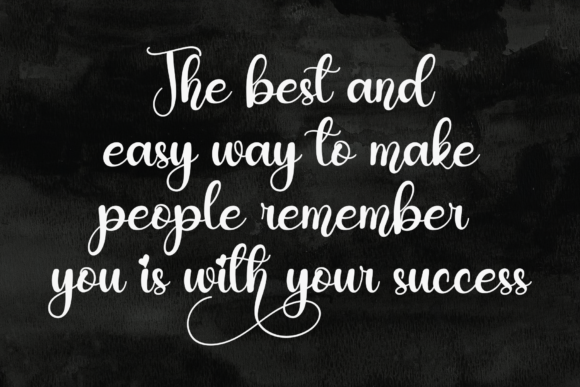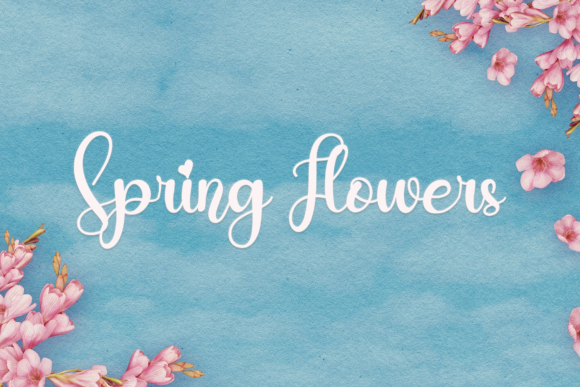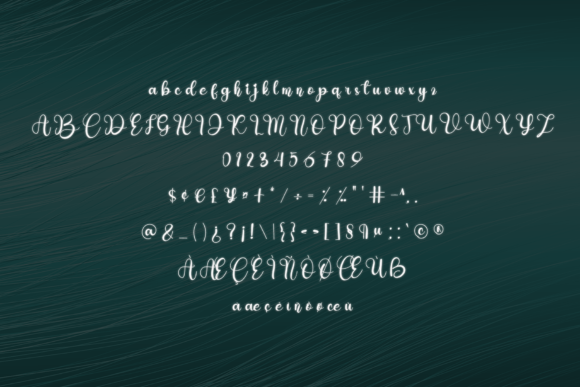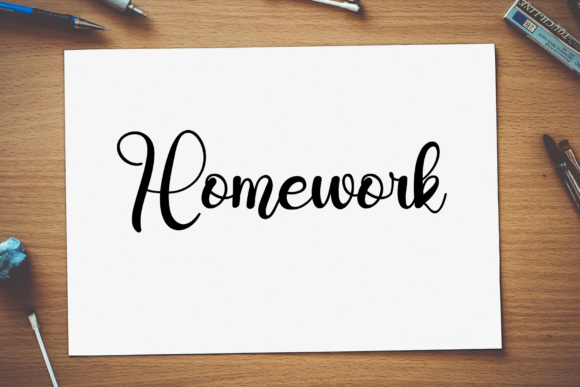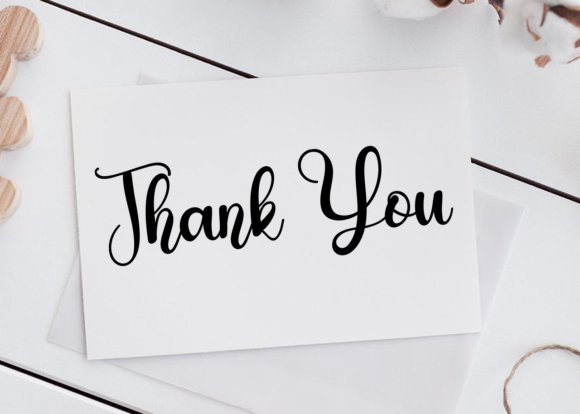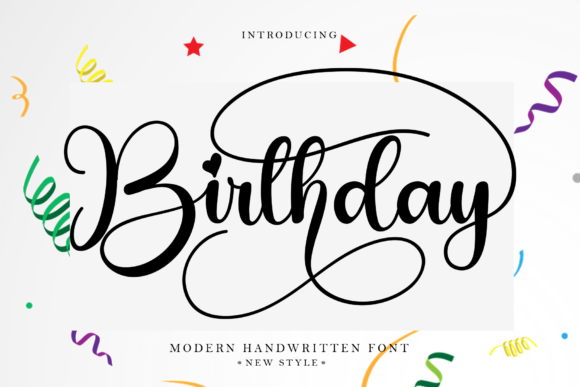
The Birth of a Unique Font: Celebrating with Birthday Font
I’ll never forget the time I was working on a birthday party invitation project for a client, and I just couldn’t find the perfect font to match the playful and celebratory vibe. The client wanted something fun, yet elegant, and I was determined to deliver. That’s when I stumbled upon the Birthday Font – a unique, round lettered handwritten font that was carefully crafted to produce the desired results. In this article, I’ll share my experience with this beautiful font, its features, and how to make the most of it in your designs.
• Unique and playful design that’s perfect for birthday invitations, titles, and more ✅
• Round lettered and handwritten feel that adds a personal touch to any design 📝
• Easily readable, even in smaller sizes, making it versatile for various applications 📊
• Carefully crafted to produce high-quality results, with attention to detail and aesthetics 🎨
While the Birthday Font is an excellent choice for many projects, there are a few things to keep in mind:
• Some letters may have limited alternates, which could be a consideration for certain designs 🤔
• As with any font, it’s essential to test it in various sizes and applications to ensure it works well for your specific project 📊
The Story Behind Birthday Font: Designer Inspiration
The Birthday Font was created with the intention of capturing the playful and celebratory essence of birthdays. The designer aimed to craft a font that would be both fun and elegant, making it perfect for a wide range of applications, from party invitations to titles and more. While the actual design process is not well-documented, it’s clear that the font was carefully crafted to produce high-quality results.
Q: What is the Birthday Font best suited for?
A: The Birthday Font is ideal for designs that require a playful, yet elegant feel, such as birthday invitations, titles, letters, and more.